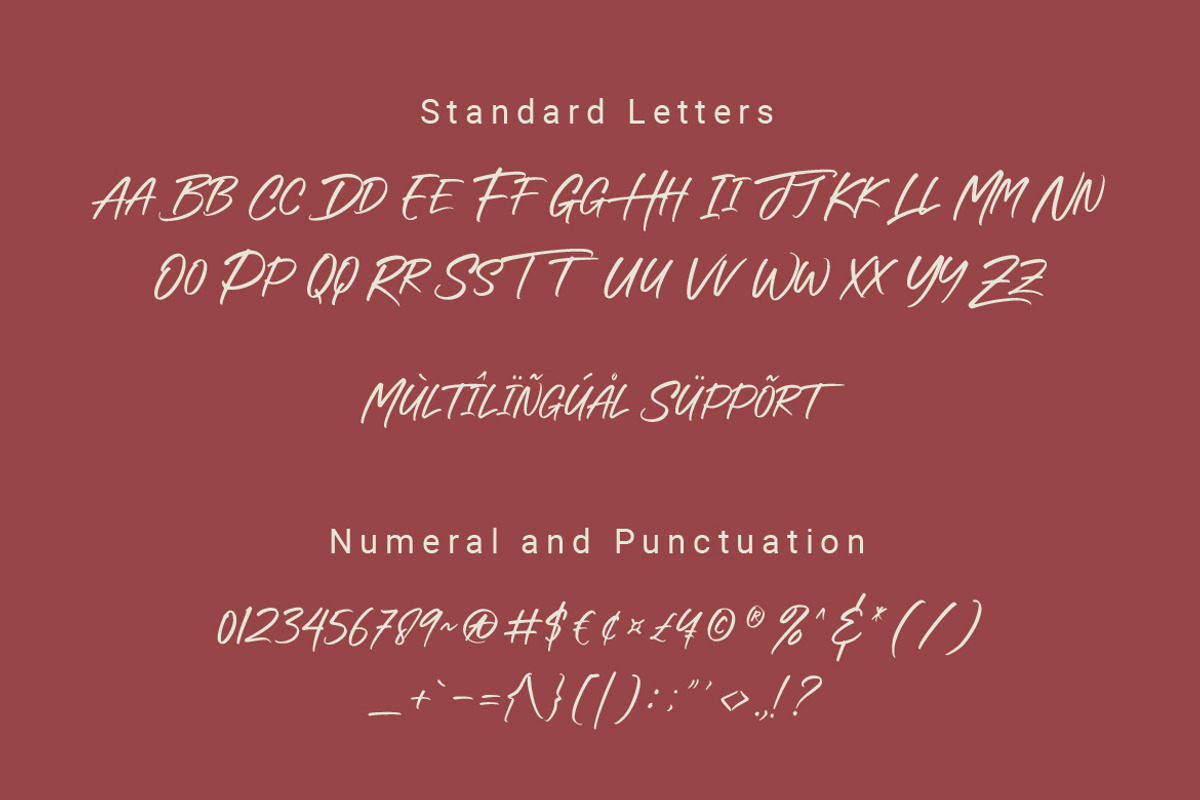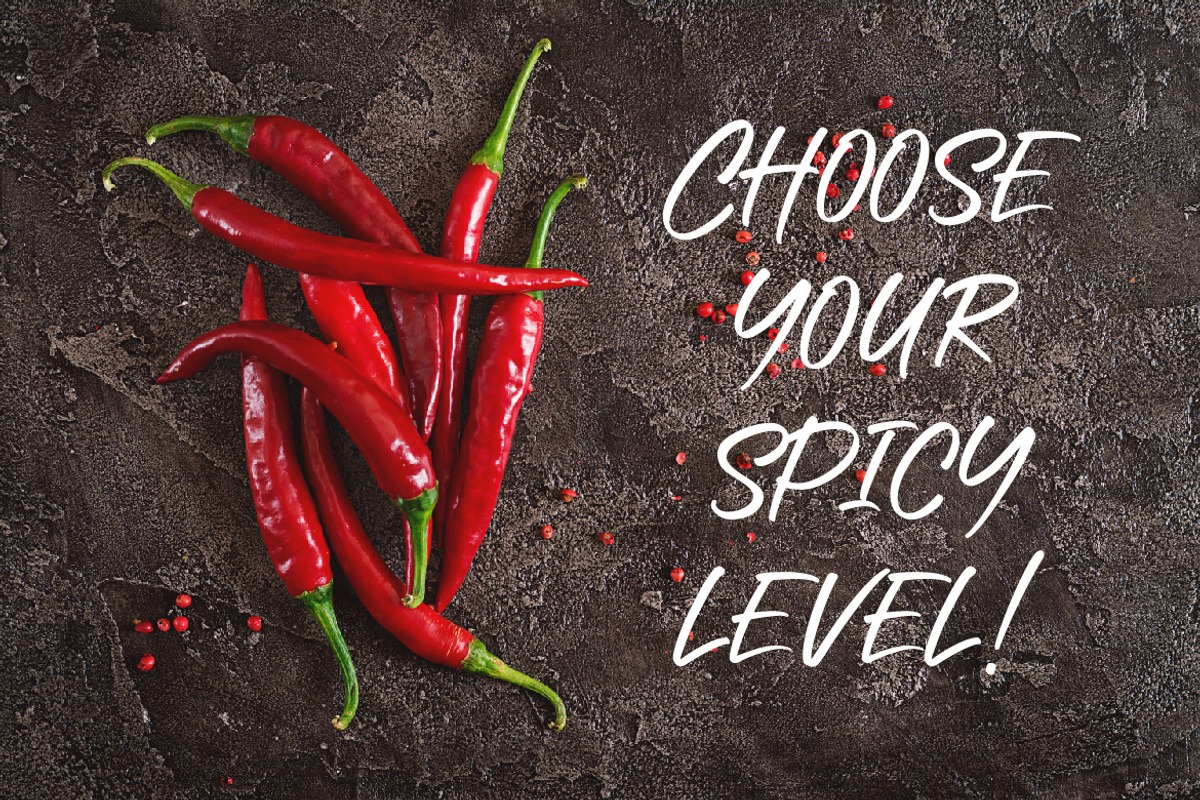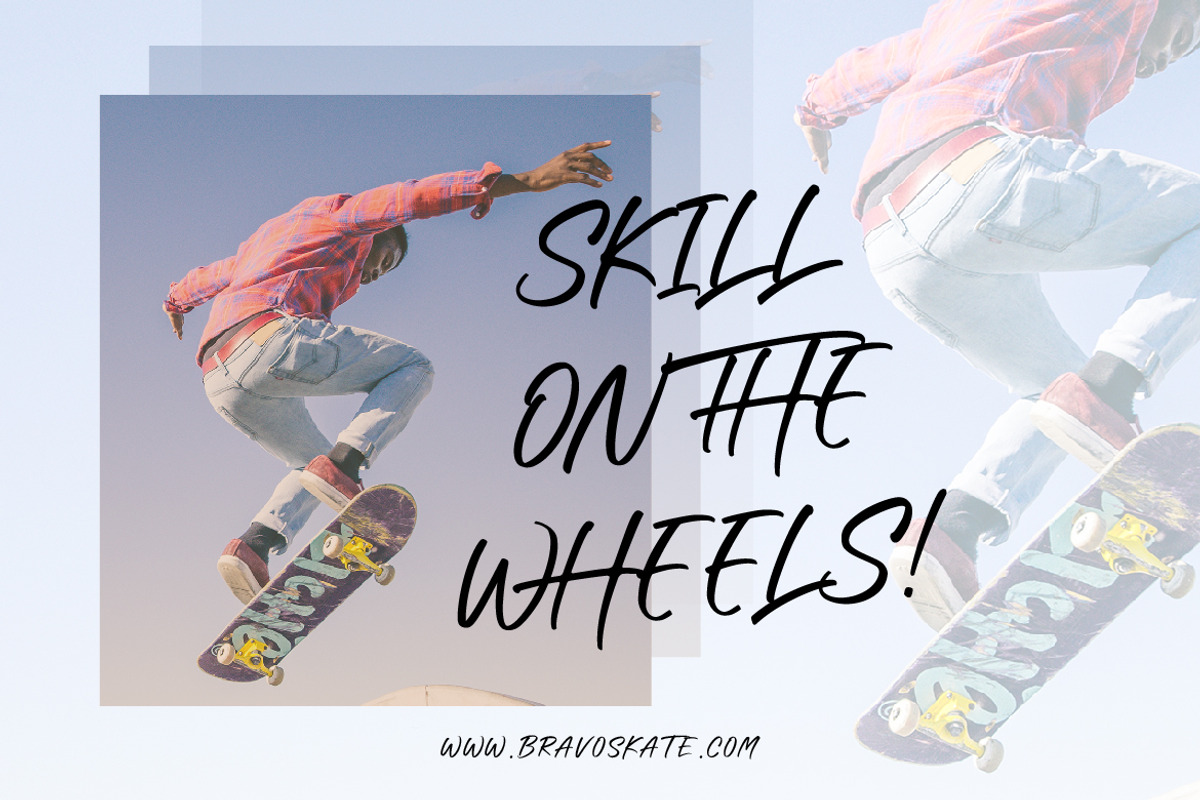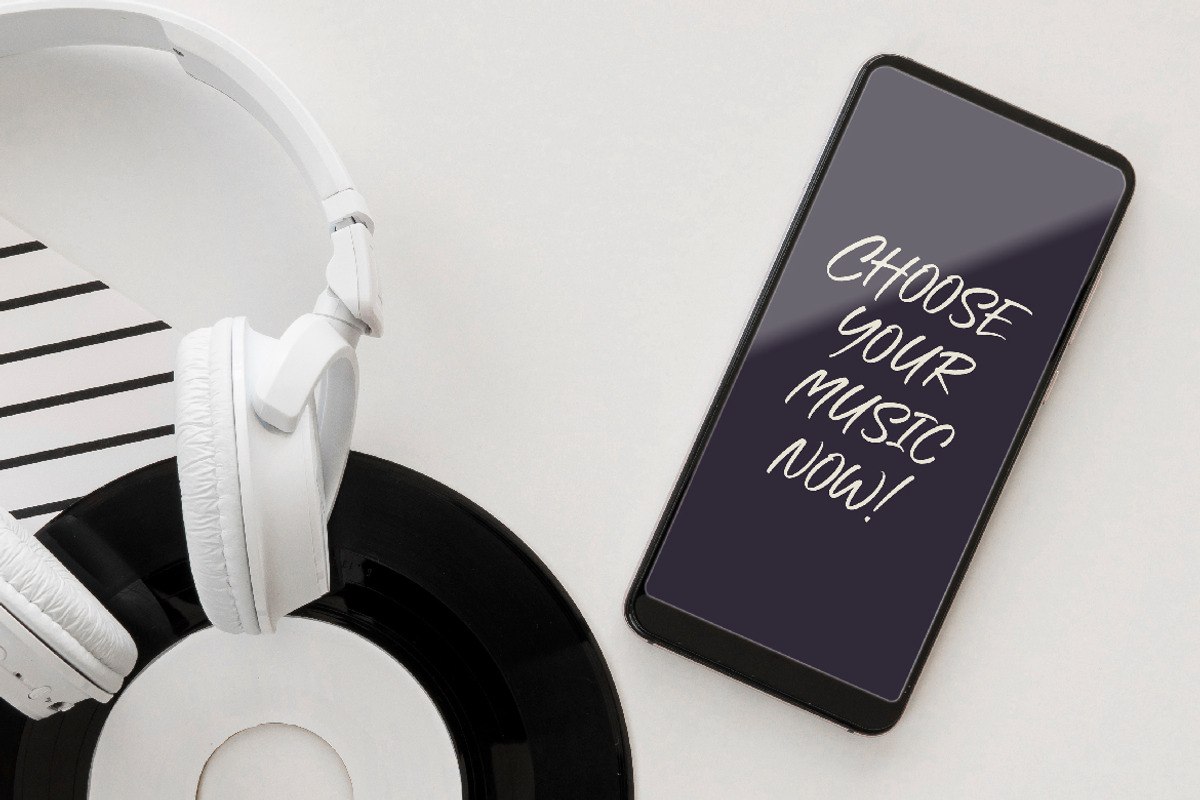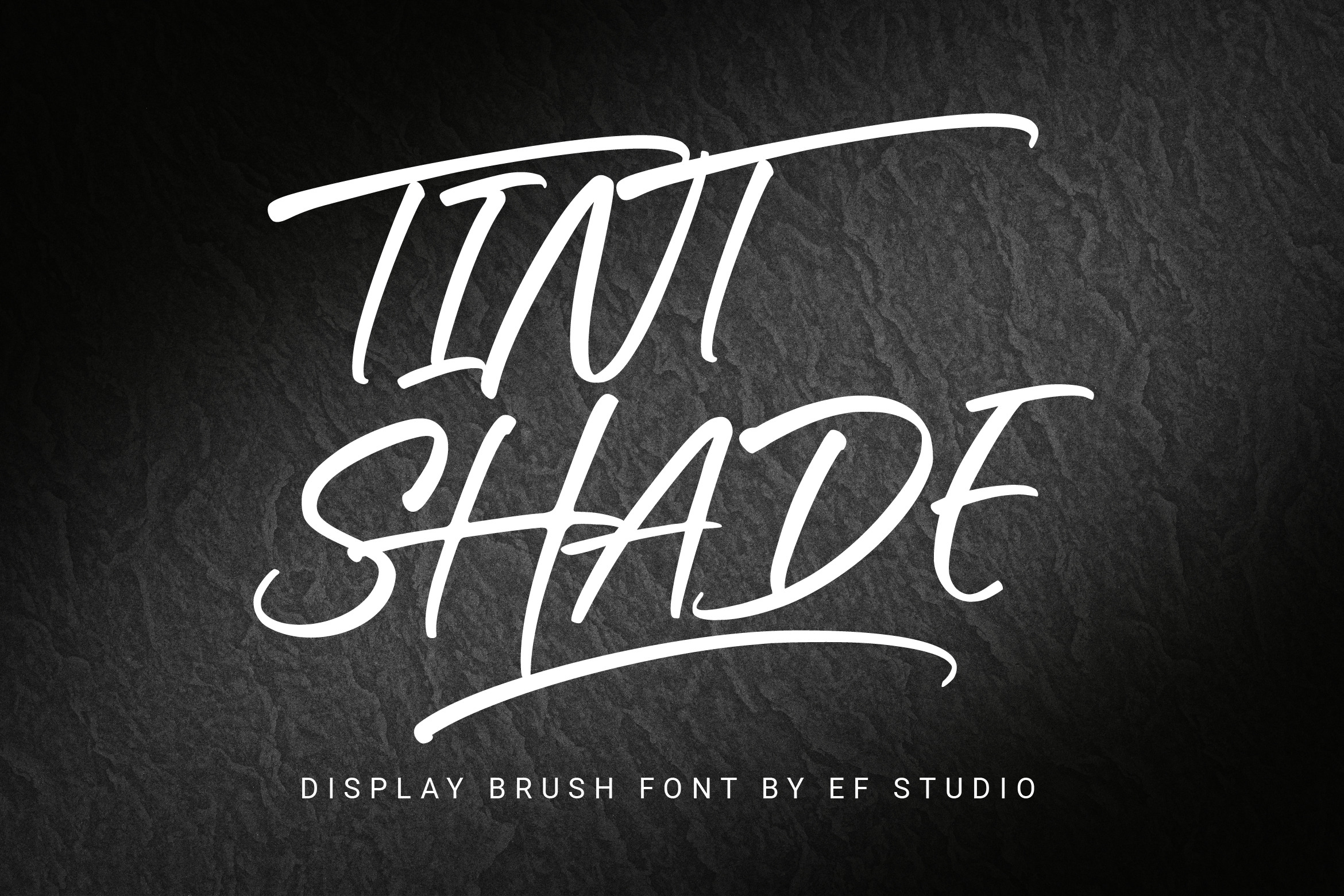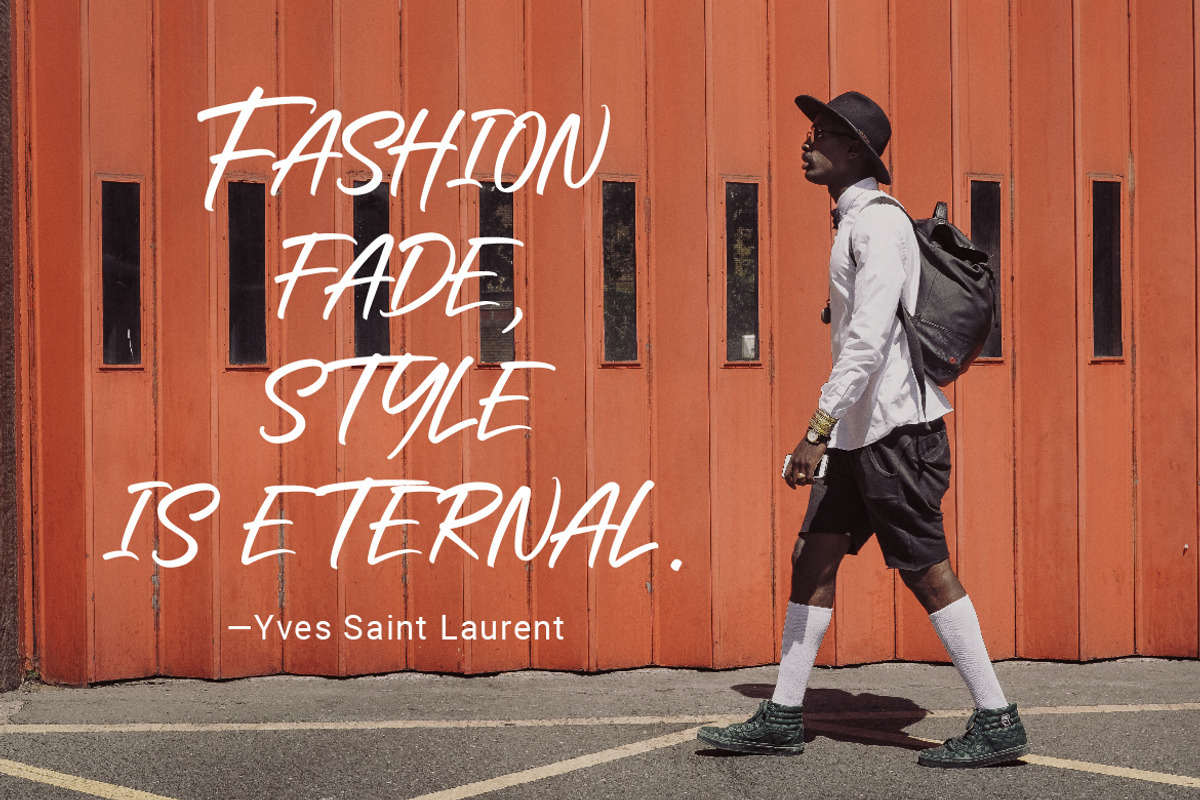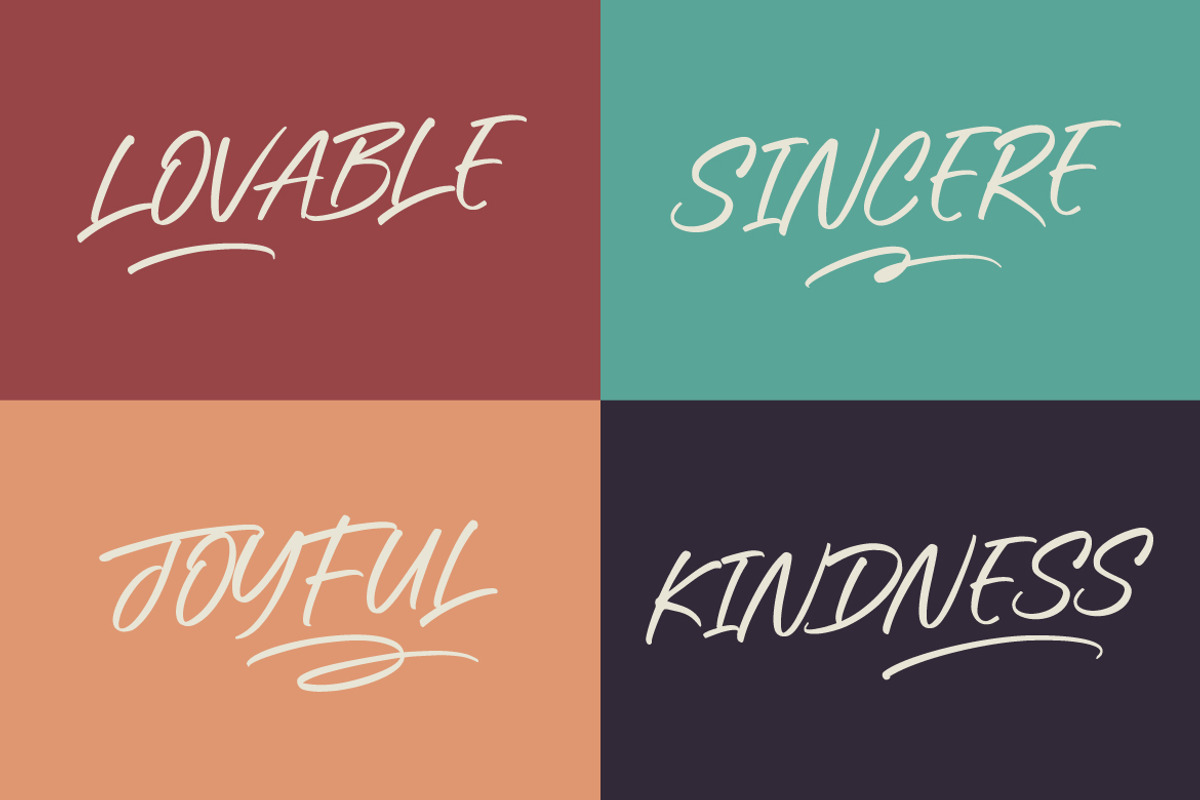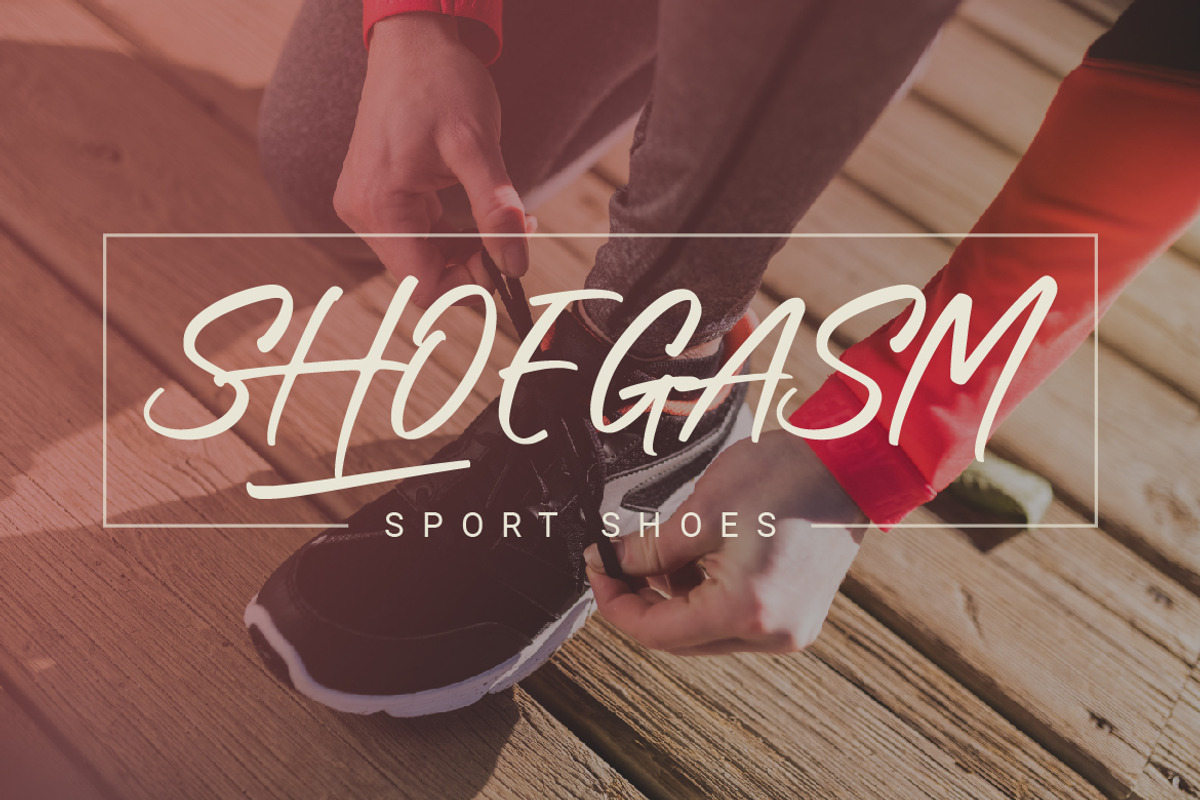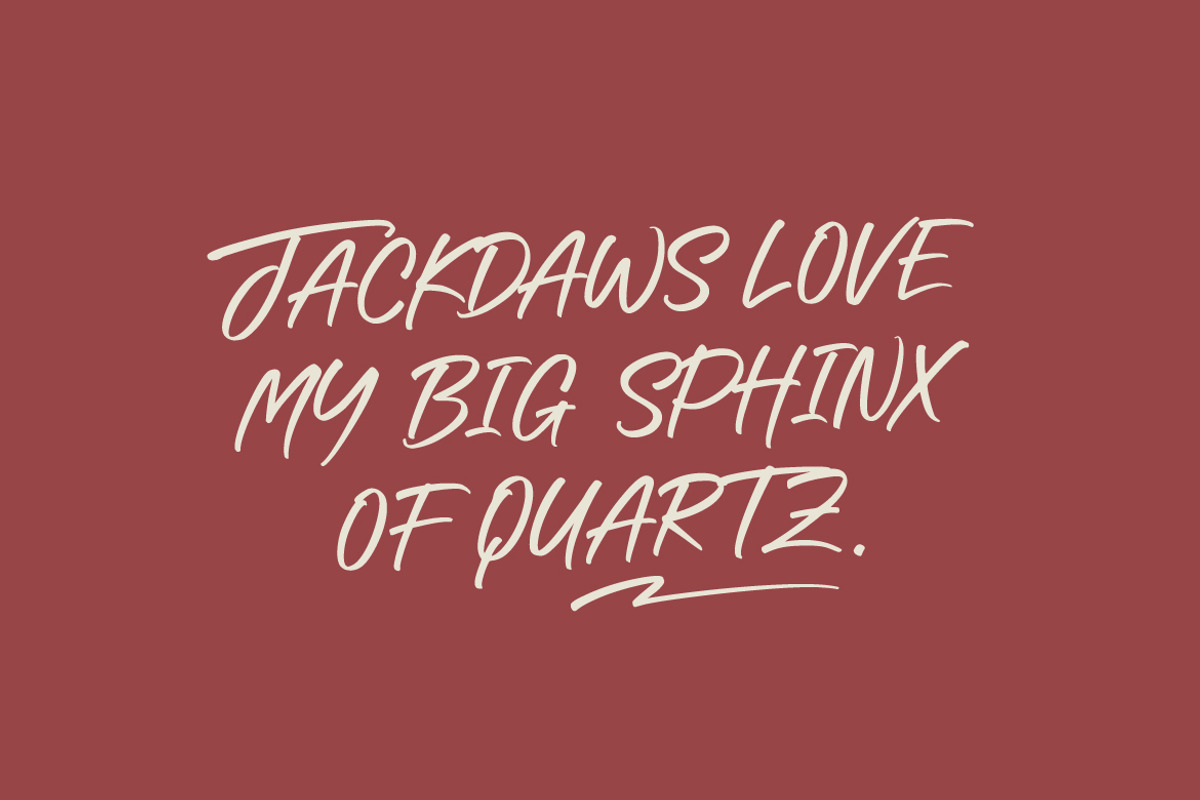
Tint Shade - Display Brush Font
Tint Shade is a uppercase display brush font that suitable for headline, branding, packaging, merchandise, advertisement, magazine, and more. You will get full set of lowercase and uppercase letters, numerals and punctuation, multilingual symbols, and 26 extra swashes.